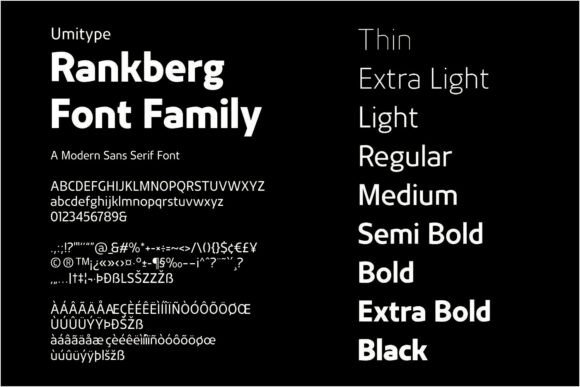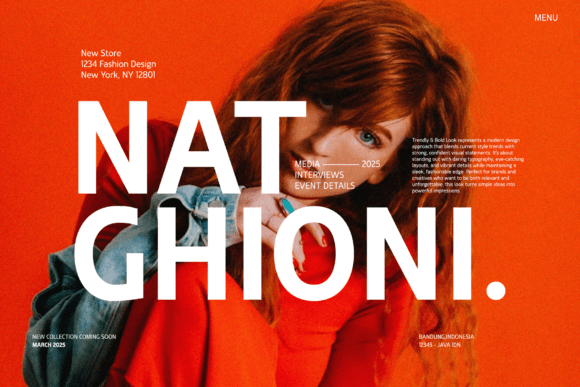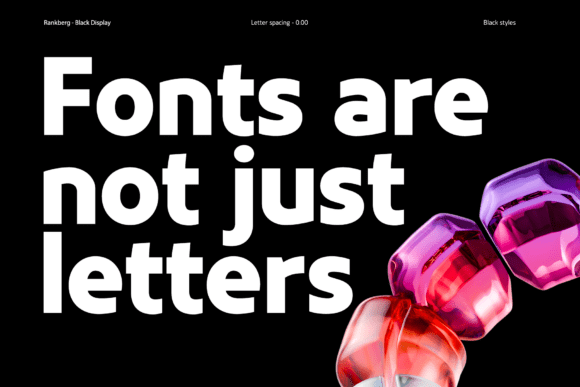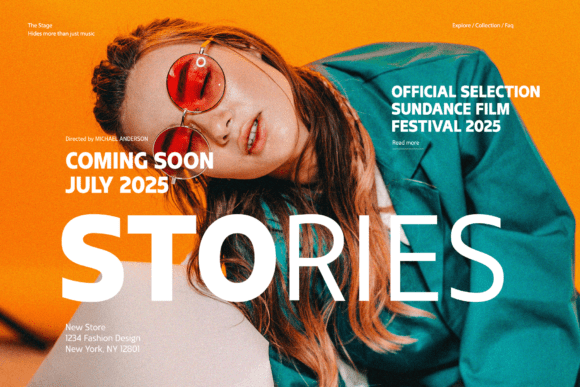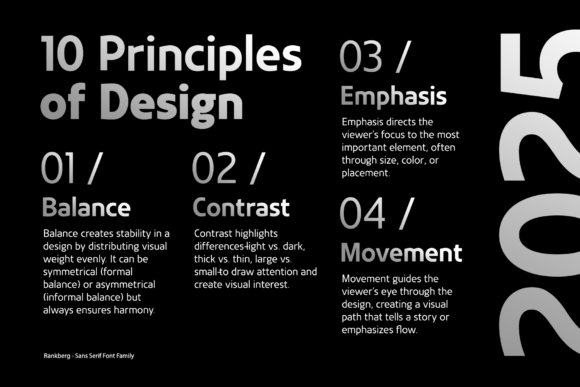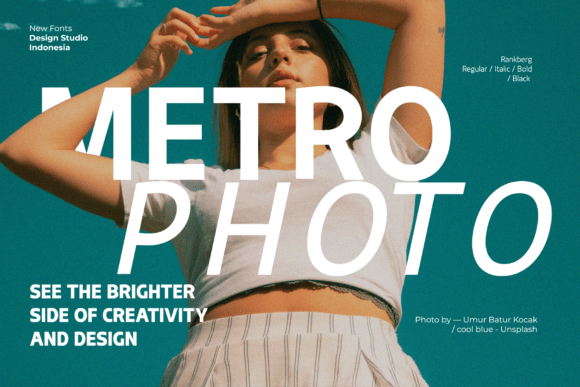
Introduction to Rankberg Font Font
Fonts play a crucial role in design, and the Rankberg Font font is a typeface that brings both character and versatility to any project. Whether you’re working on a branding project, a website, or a print design, the Rankberg Font font offers a unique style that can elevate your work.
Rankberg is a modern, bold sans-serif font family designed to bring strength and clarity to visual communication.
Its sans-serif structure emphasizes precision and balance, creating a clean and contemporary look suitable for a wide range of professional applications With a full spectrum of weights, from Thin to Black, this typeface provides flexibility for both minimal and bold expressions.
Key Features of Rankberg Font Font
Why Choose Rankberg Font Font?
The Rankberg Font font is more than just a typeface – it’s a design tool that helps you communicate your message with style and clarity. Its unique character set and versatile design make it suitable for a wide range of applications, from elegant invitations to bold headlines.
With its carefully crafted letterforms and balanced proportions, the Rankberg Font font ensures readability and visual appeal across all mediums.
What makes Rankberg Font font special?
The Rankberg Font font stands out with its unique design, exceptional readability, and versatility across various design applications.